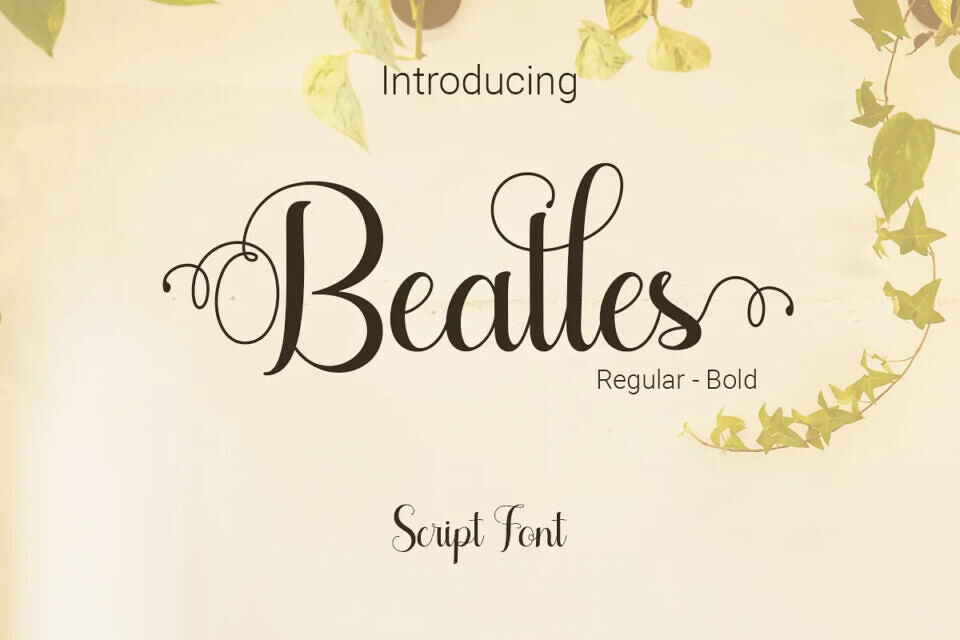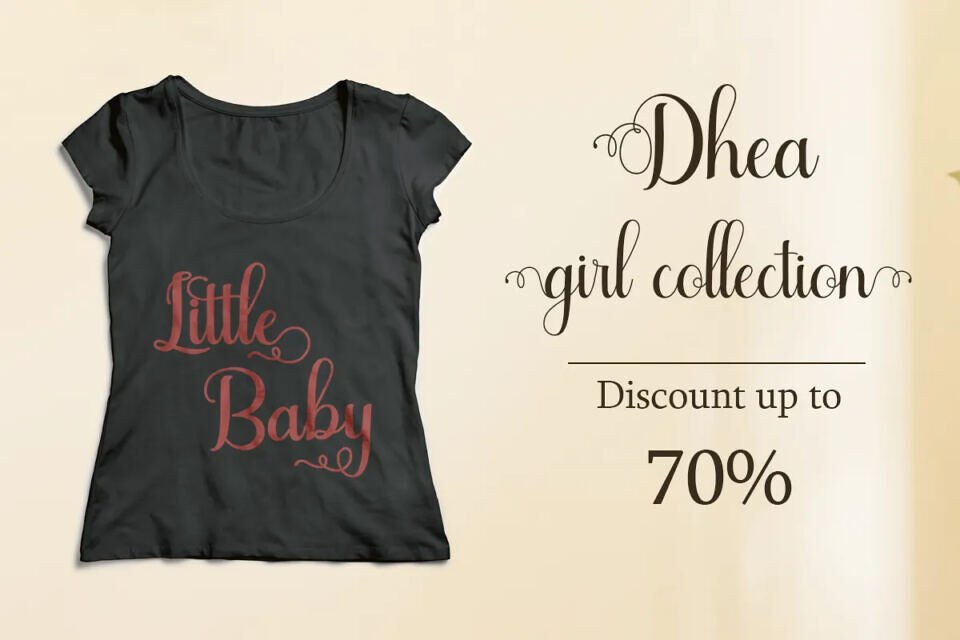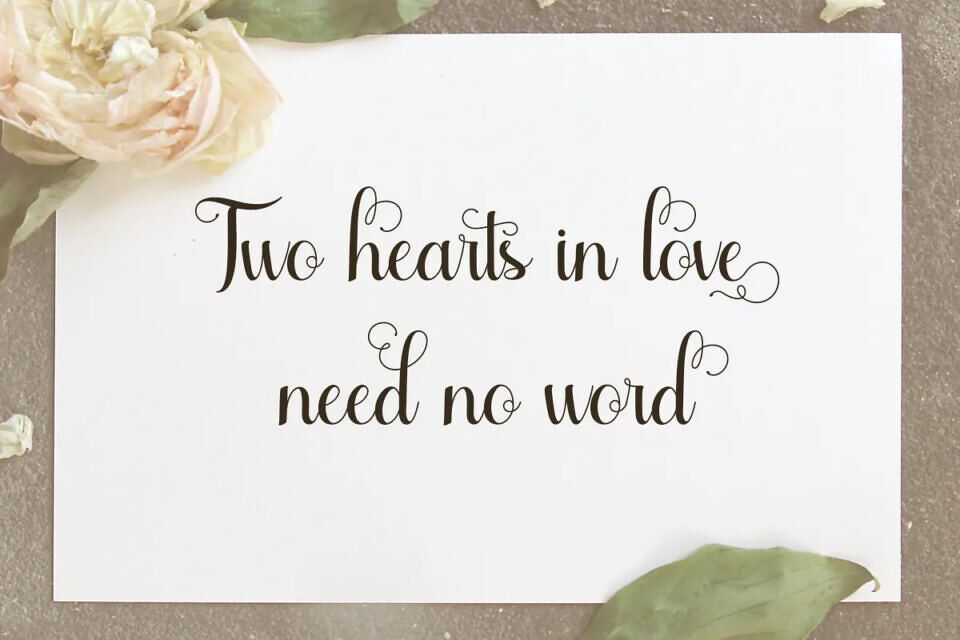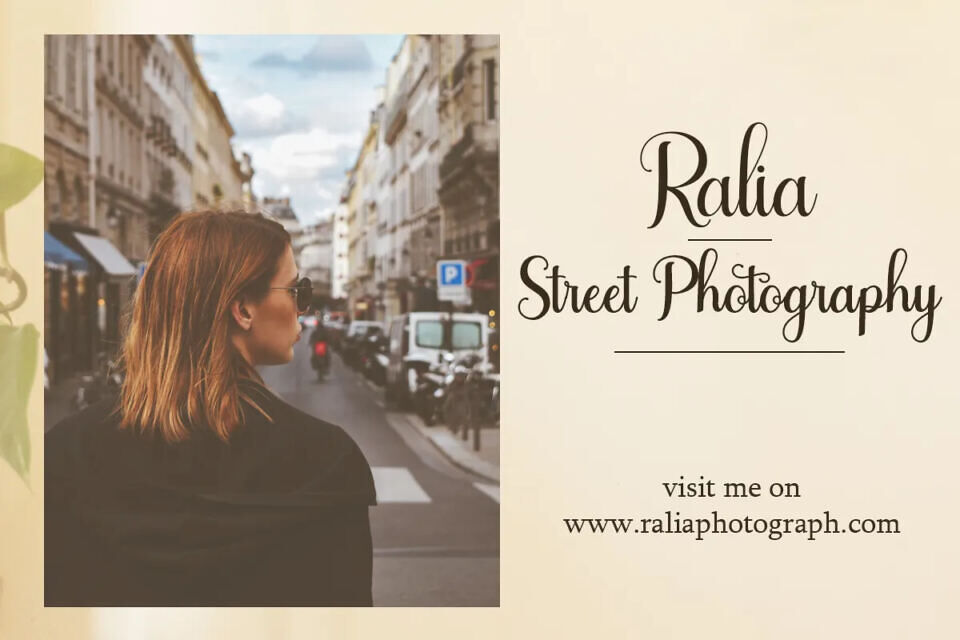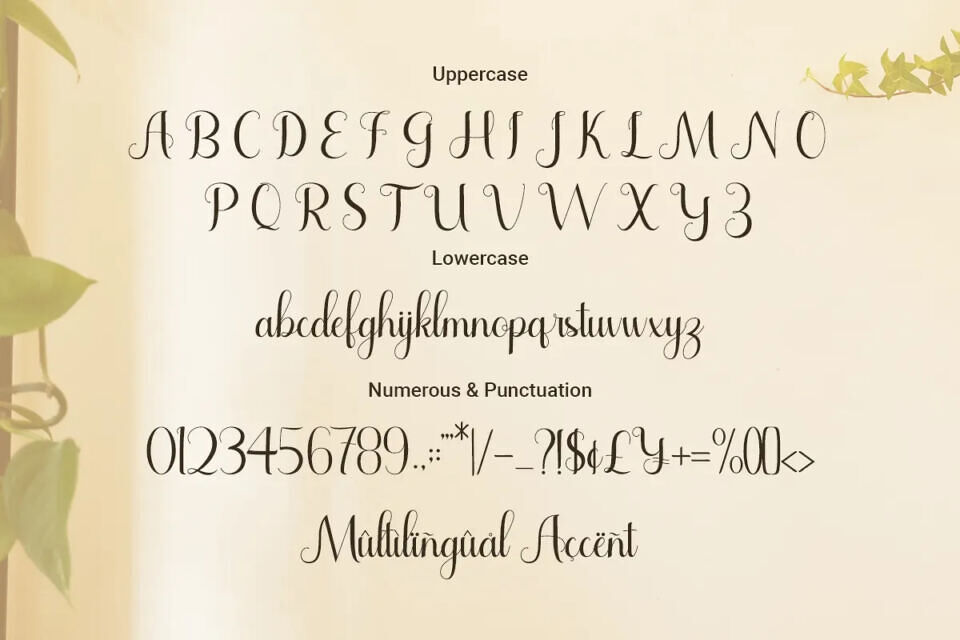
Beatles font is a sophisticated and elegant script typeface that brings a touch of class to any design. With its flowing curves and meticulously crafted characters, it is ideal for wedding invitations, branding, logos, and any project that requires a refined, classic look.
Available in Regular and Bold weights, the font provides versatility and distinction to your text, making it perfect for both headlines and detailed text work. Whether for personal or commercial use, Beatles adds a timeless charm to your design projects.